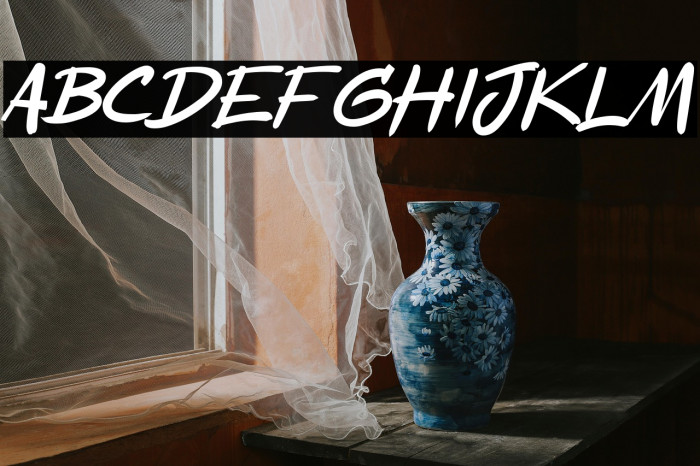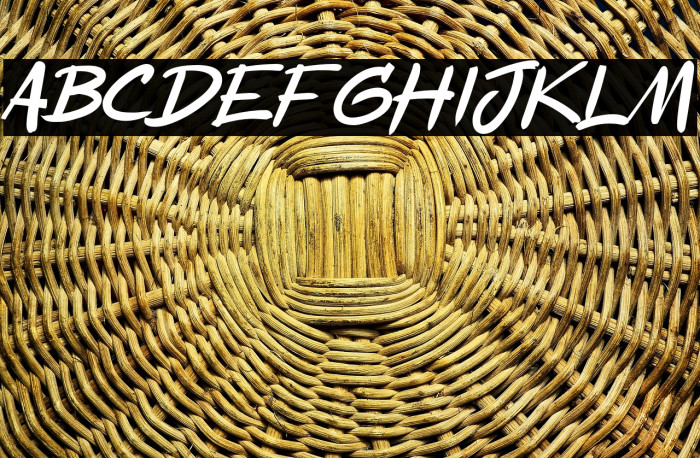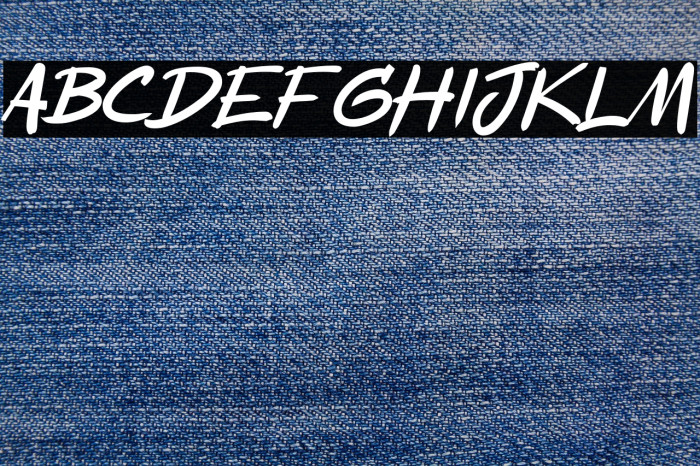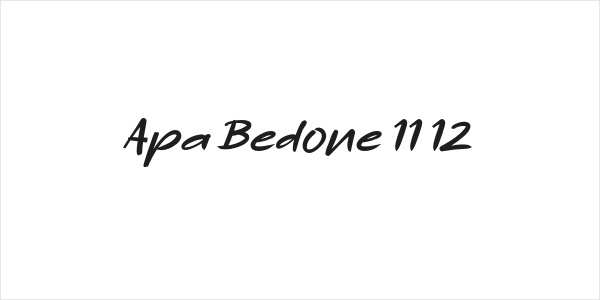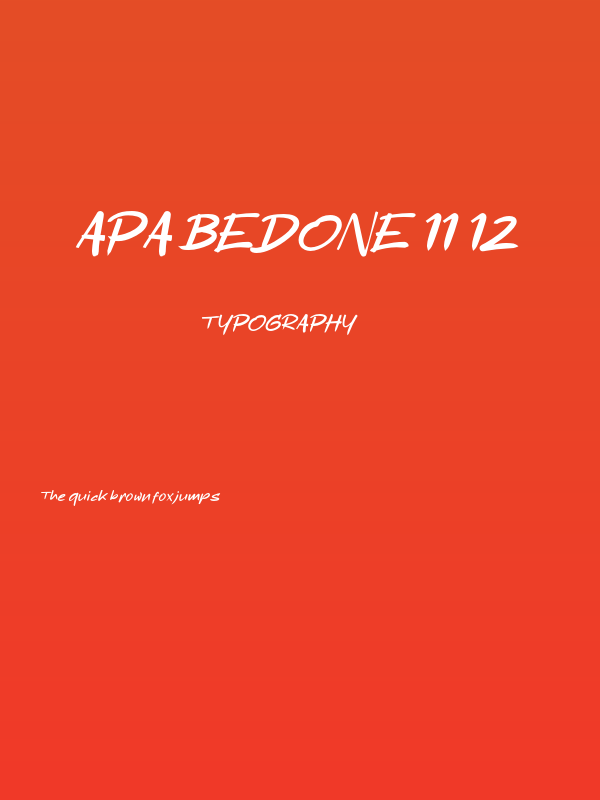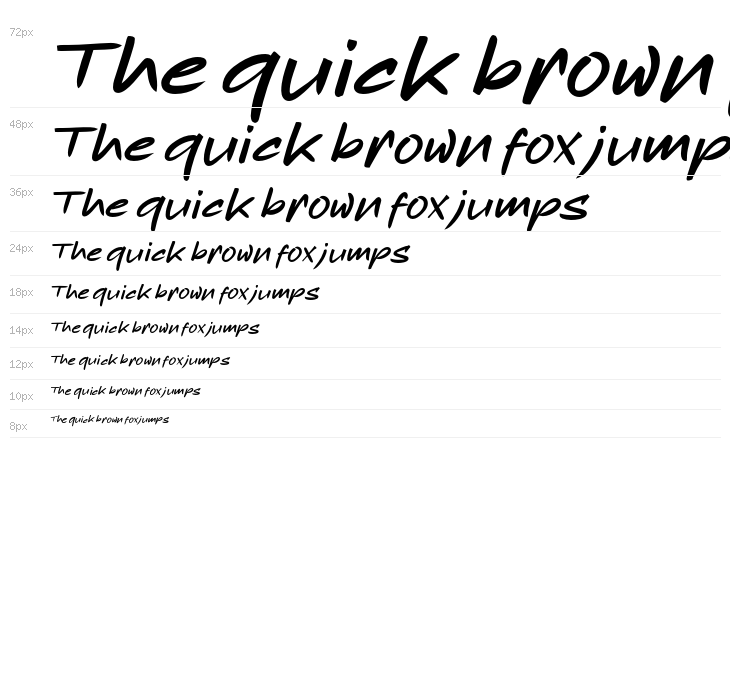
Apa Bedone 11 12 Font
Apa Bedone 11 12 Description
This font features a dynamic and fluid script style, characterized by its smooth, flowing strokes and slightly slanted orientation. The uppercase letters exhibit a bold and confident appearance, while the lowercase letters maintain a consistent rhythm and elegance. The numerals are well-integrated, matching the overall cursive style, and the special characters are crafted with the same attention to detail, ensuring a cohesive look across all glyphs. This font's design is both expressive and legible, making it suitable for a variety of creative applications.